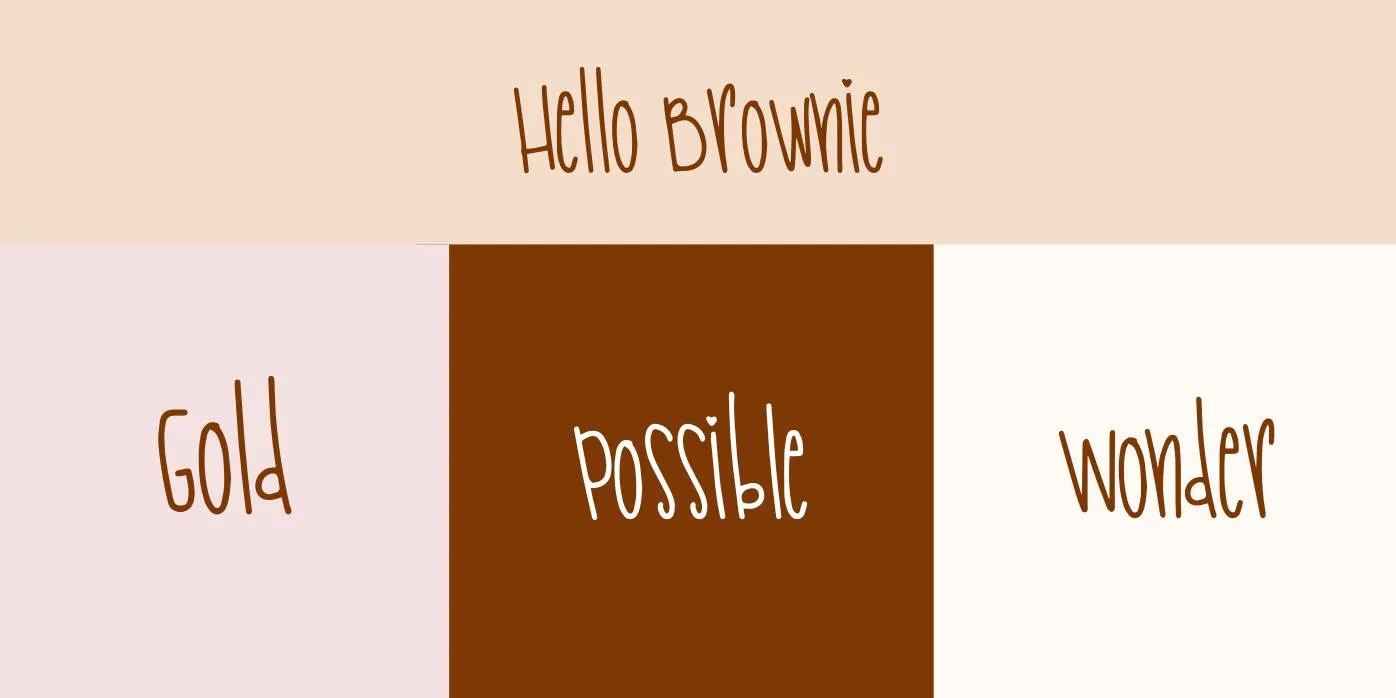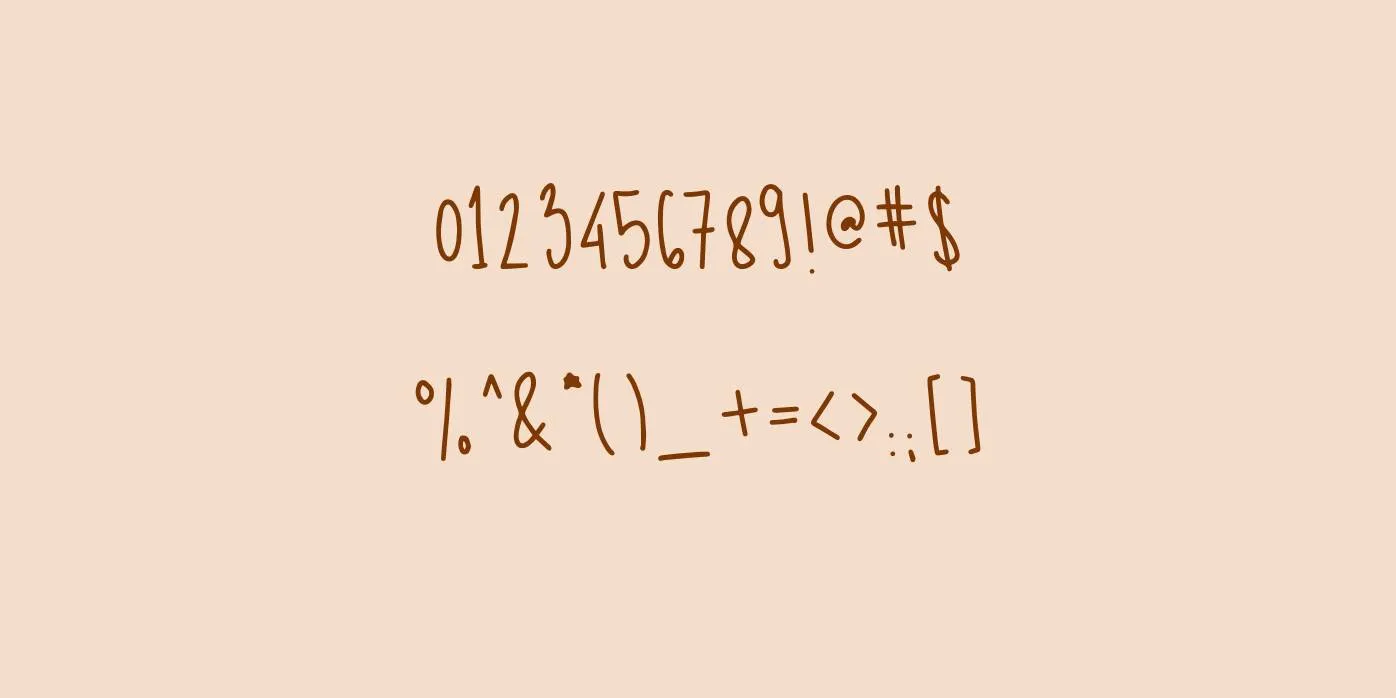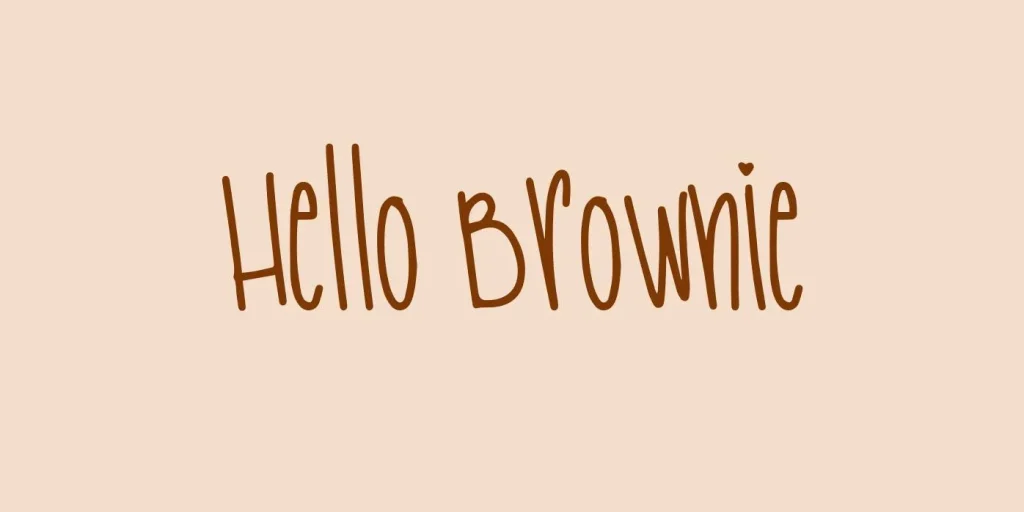
Presenting Hello Brownie Font, a script font style that was created by The Ocean Studio-Laire Banyu Sandi Pawenang, it comes in TTF and OTF formats along with a demo version for personal use only.
This typeface comes in Regular weight along with stunning characters in uppercase, lowercase, numbers, punctuations, symbols, signs, and a few special characters.
Designs Guidelines For Working With Hello Brownie Font
This font is perfect for the making of logos, titles, captions, headlines, posters, banners, articles, flyers, billboards, content, report writing, leaflets, business outlets, tags, menus, and many more. When you combine this typeface with the trumpit font, you have the potential to create stunning displays.
This lettering is a great option for the development of apps, website designs, mug designs, t-shirts, tv shows, subtitles, flags, newspapers, invites, wedding cards, official presentations, assignments, projects, photographs, and other related projects who want a stunning handwritten touch in their appearance.
| Name | Hello Brownie Font |
| Designer | The Ocean Studio-Laire Banyu Sandi Pawenang |
| Style | Script |
What kind of typeface is Hello Brownie?
This font is a script font style that was created by The Ocean Studio-Laire Banyu Sandi Pawenang.
Is the Hello Brownie typeface good for wedding cards?
This font is a perfect option for invites, wedding cards, offer cards, and other related materials, it can give them a unique, cute, and attractive texture and make them more eye-catching.